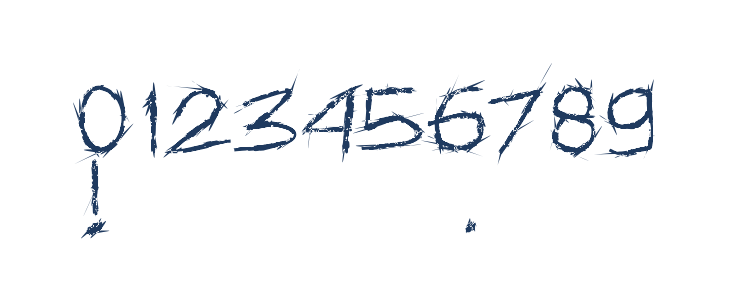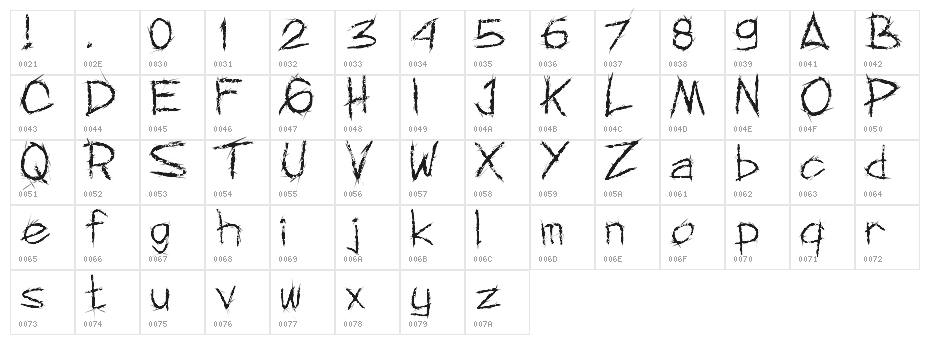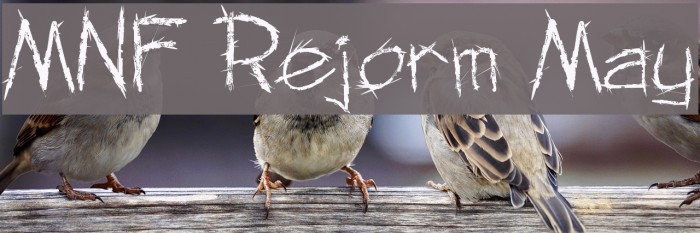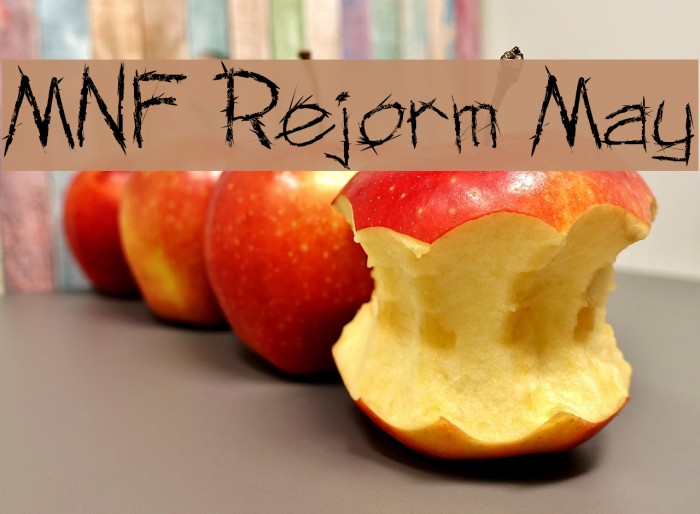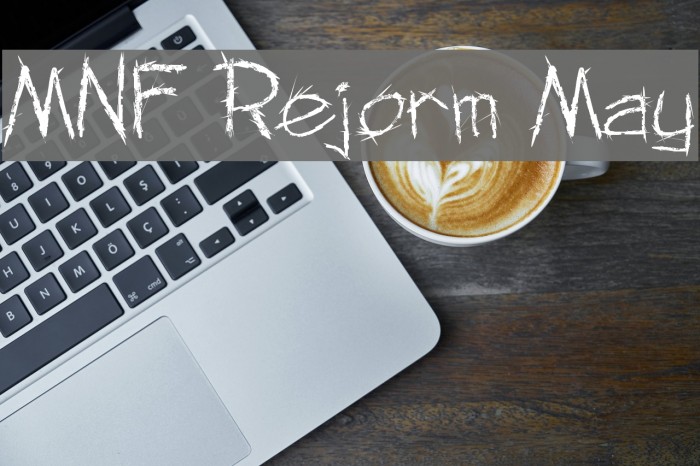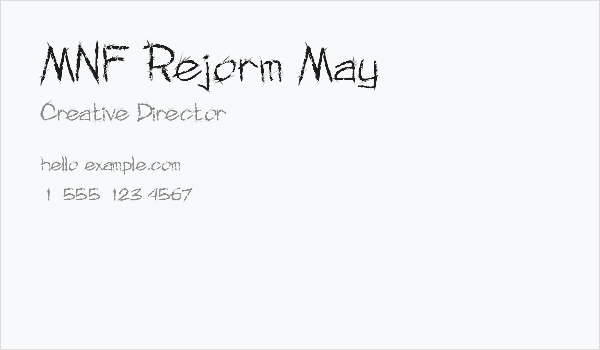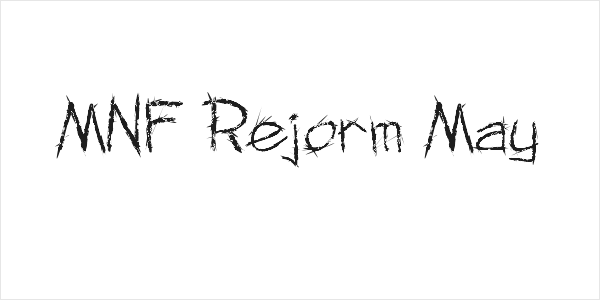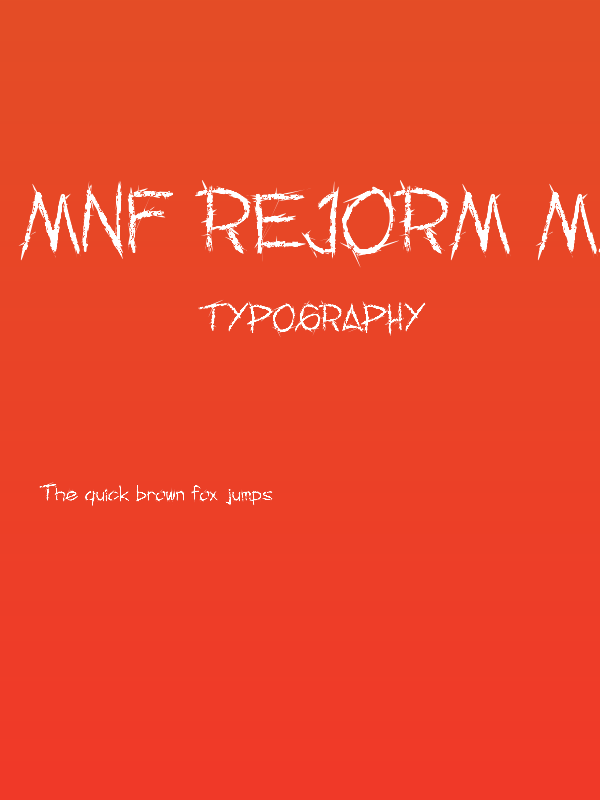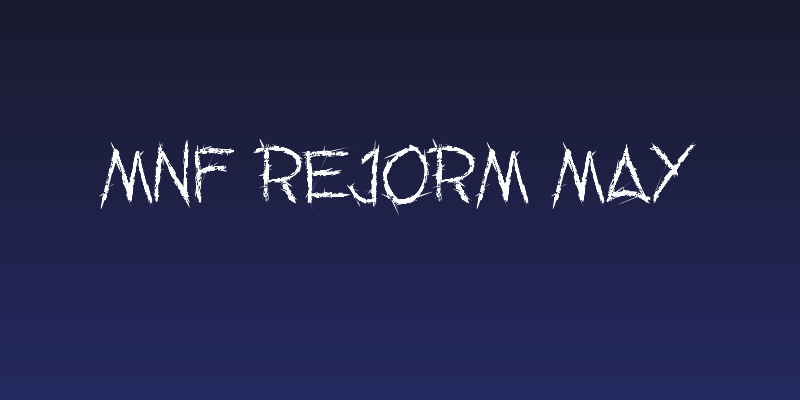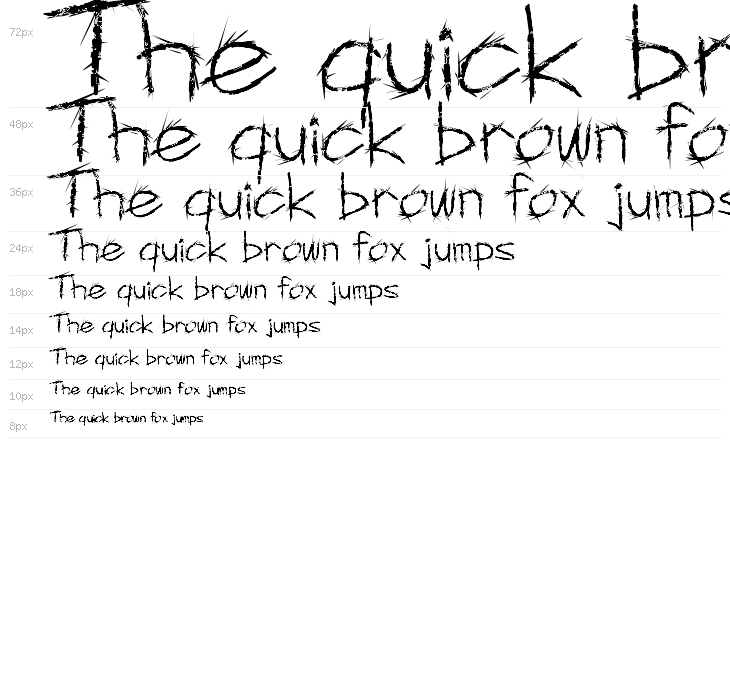
MNF Rejorm May Font
MNF Rejorm May Description
This font features a highly decorative and edgy style, characterized by sharp, jagged edges and a distressed appearance. The letters appear as if they are made from thorny branches or barbed wire, giving it a rugged and rebellious look. The uppercase and lowercase letters maintain a consistent style, with each character exhibiting unique, irregular spikes and angles. Numbers and special characters follow the same aesthetic, ensuring a cohesive design throughout. This font is ideal for projects that require a bold, attention-grabbing typeface with a touch of chaos and creativity.
| Proposed Projects | Album covers, horror movie posters, edgy branding, and streetwear designs. |